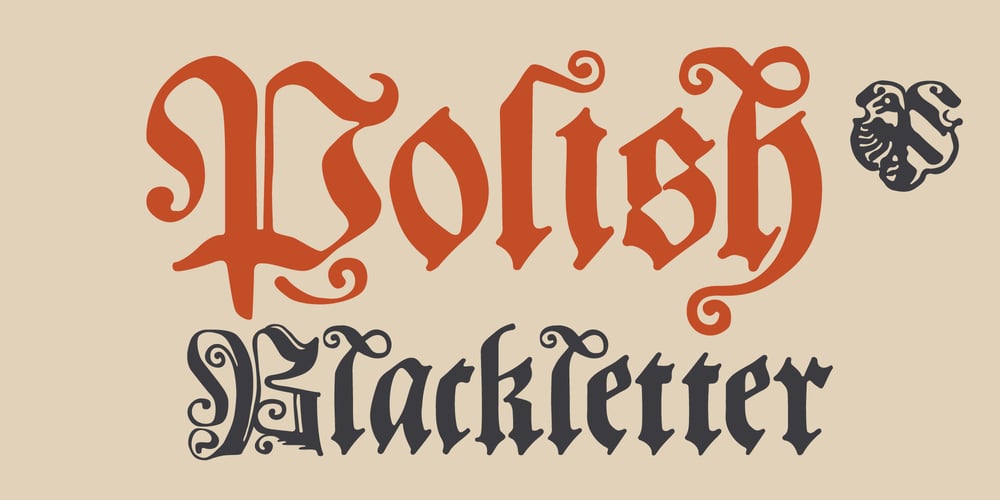
Polish Blackletter Font Family was designed by Roman Korolev and published by Kaer. Polish Blackletter contains 1 styles and family package options. Hello! Here is a story of this font. It began a start from medieval Poland. The Brest printing house was organized on the initiative and at the expense of the famous figure of the Grand Duchy of Lithuania, Prince Nikolai Radziwill. In 1566 the Protestant theologian Tomas Falconius published a book of commentaries on the New Testament “Sprawy y słowa Jezusa Krystusa Syna Bożego” it means “The Matters and Words of Jesus Christ, the Son of God”. This book used Schwabacher as a main font. Schwabacher is a specific style of blackletter typefaces which evolved from Gothic Textura under the influence of Humanist type design in Italy during the 15th century. Schwabacher typesetting was the most common typeface in Germany.Similar to Rotunda, the rounded Schwabacher types were nearer to handwriting than the former Textua style, though it also includes sharp edges.You will get:* Uppercase & lowercase* Numbers and symbols* Multilingual support * Additional glyphs* Free future updatesPlease feel free to request to add characters you need: kaer.pro@gmail.comThank you!